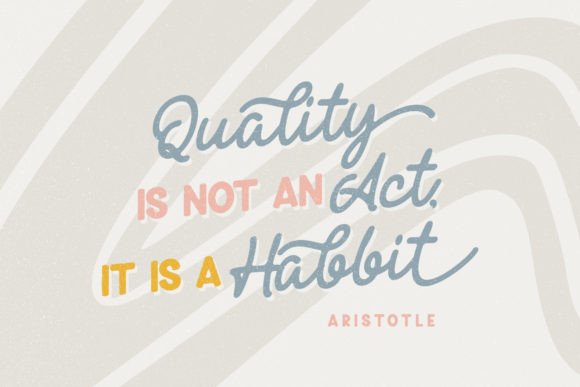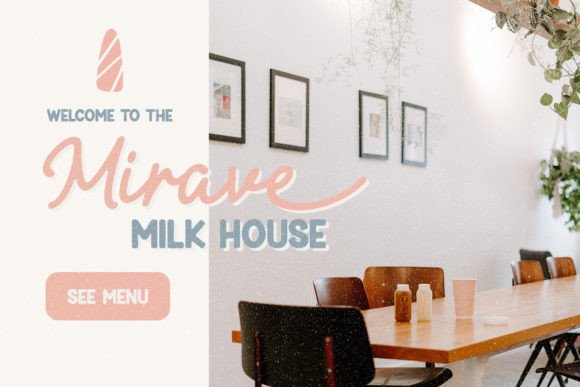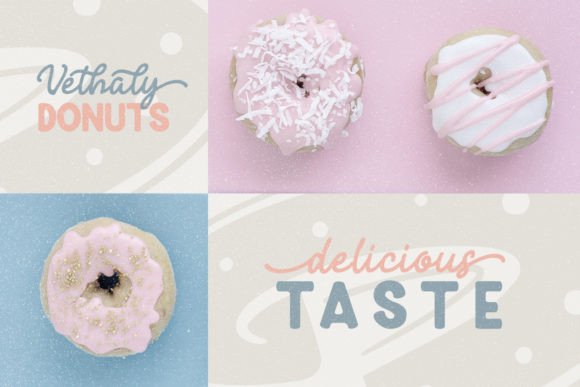
Introduction to Hug Shack Font
Hug Shack is a beautiful and easy-to-style font duo to elevate your design.
Hug Shack expresses a feeling of joy and cuteness You can mix and match this harmonious font duo to make gorgeous results in your design.